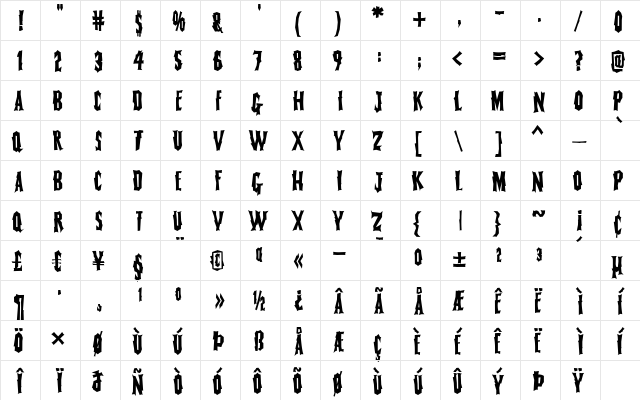
FearlessVampireKiller Regular
Design Context for FearlessVampireKiller Typeface
FearlessVampireKiller is a composed and adaptable typeface that performs quietly and consistently across a wide range of design contexts.
Pro Tip: Use FearlessVampireKiller in both headline and body roles to test its range before committing to a single application.